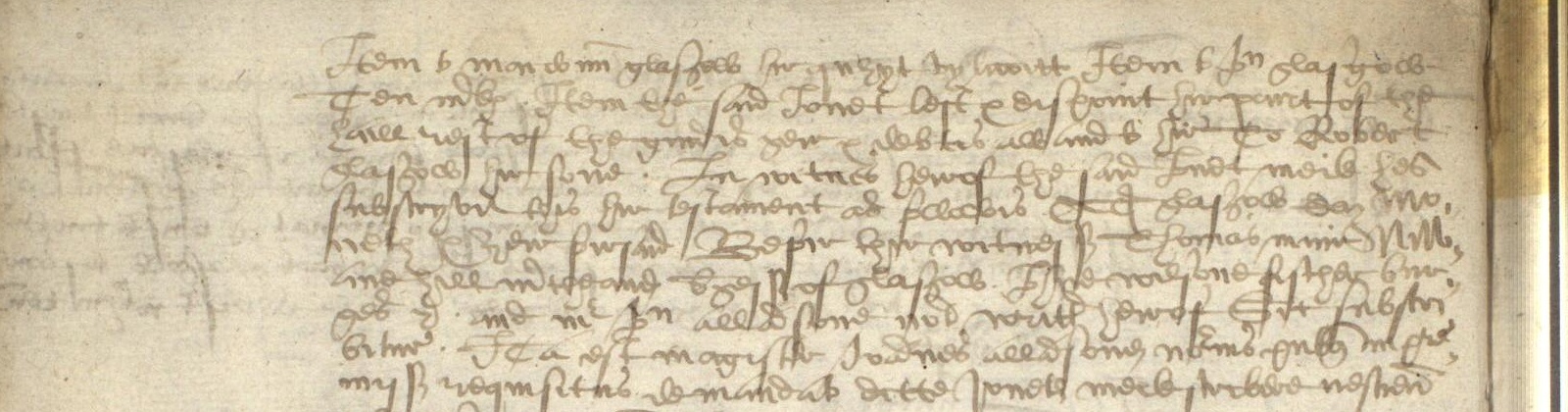
Jonet Meik's oral testament gives one secure parent-child statement: Robert Glasgow is repeatedly called her son. Her husband's forename and Marioun Glasgow's relationship word remain qualified readings.
New to secretary hand? Start with the shapes.
Follow the writing line. Ascenders rise above small letters; descenders fall below them. A neighbouring line can cross the word you are reading.
Count the short strokes. These are called minims. Joined i, m, n and u shapes can be ambiguous; compare a clear repeated word by the same clerk rather than guessing from a modern alphabet.
Separate reading from expansion. A contraction is not a fully written modern word. Square brackets retain doubtful letters or editorial additions. A familiar legal formula is a clue, not permission to fill a gap.
Then assess the relationship. Reading a name securely is not the same as proving kinship. Look for the actual role words and who they refer to.
Choose a name or relationship below. Compare the original ink, a paper-free view and the same spelling in a secretary-hand teaching font. Open the reasoning only when you need it.
01Niniane or Williame? Test the minims, not the expected husbandNiniane or Williame? Test the minims, not the expected husbandInspect reading
Proposed readingNiniane[?]
The first spouse clause contains a compact forename crossed by ink from neighbouring lines. The traces pick out the opening form and some short body strokes, not a fully resolved sequence of letters. Compare the repeated name in the executor clause elsewhere in the same image.
01 Original word Untouched manuscript02 Ink on white Derived from the original pixels
03 Same spelling, another hand Joscelyn teaching font
Niniane[?]
The white-background view suppresses paper colour; reviewed focus boundaries exclude separable neighbouring fragments where available. It does not restore missing strokes. Colour follows retained source pixels inside proposed letter groups, not a reconstructed pen path. Ambiguous crossings remain neutral where reviewed; other crossing ink may still belong to another line.
The font repeats the proposed spelling, not this clerk's handwriting. Similarity is a teaching aid, not confirmation; uncertainties remain in the reading above.
Locate the word in its passage Original contextThe first spouse clause contains a compact forename crossed by ink from neighbouring lines. The traces pick out the opening form and some short body strokes, not a fully resolved sequence of letters. Compare the repeated name in the executor clause elsewhere in the same image.Reading, meaning and uncertainty
Expansion: Ninian [?]
Confidence: Probable forename; the spouse role is explicit.
Evidence boundary: Retain Niniane as probable. The separate wording Robert Glasgow hir sone is direct evidence of Jonet's son; the disputed husband's name must not be used to invent additional parentage.
Jonet meik spous to Niniane[?] glasgow ... vpoun the fyftein[?] day of februar 1606 ... Niniane[?] glasgow hir spous and Robert glasgow hir sone
In modern English
Jonet Meik, spouse of Niniane[?] Glasgow ... on the fifteenth[?] day of February 1606 ... Niniane[?] Glasgow her spouse and Robert Glasgow her son
How to read it
Read the opening across two tightly spaced lines. The kin terms hir spous and hir sone are visible beside their names, so relationship does not depend on appointment language. The husband's forename and the ordinal remain bracketed because their crowded middle strokes can support alternatives; the repeated husband form helps without making it certain.
What this establishes
Robert Glasgow was Jonet Meik's son; the oral testament was made in February 1606.
What it does not establish
It does not secure the husband's forename beyond doubt or give Jonet's exact death date; she died an unread number of days later.
high for Robert as son; medium for Niniane and the fifteenth
Slow reading
Inspect the words, not just the conclusion.
Compare the original strokes with the proposed reading. Tall or trailing strokes from neighbouring lines may enter a sample; the notes distinguish what is visible from what remains uncertain.
Phrase 01
Jonet meik
Jonet Meik
Magnified from the same manuscript image. No letters have been redrawn.
Look at the strokes
The capital J has a long downstroke and leftward return below the line.
Jonet ends in a tall crossed t that rises above the preceding letters.
meik is a compact group of short minims ending in a taller k-like stroke.
Reading limits: The woman's name is clear; the file identifier's 'melk' does not override the visible Meik reading.
Phrase 02
spous to Niniane[?] glasgow
spouse of Niniane [?] Glasgow